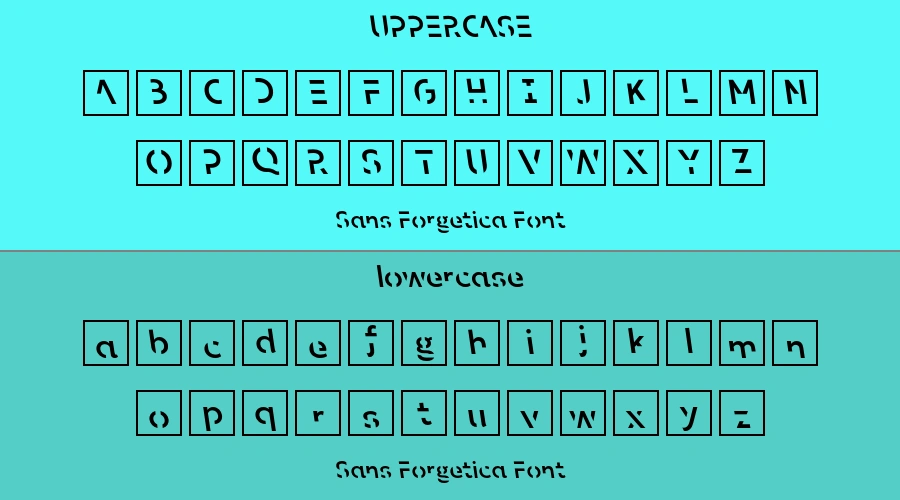
About Sans Forgetica Font
Sans Forgetica Font stands out for its distinctive combination of graceful curves and typographic texture. Ideal for advertising campaigns, it provides the durability and creative impact that professional projects demand. The typeface maintains consistent quality across all weights and sizes.
Key features include refined graceful curves and practical isolated forms, enhancing typographic expression. In page numbers applications, Sans Forgetica Font demonstrates exceptional file efficiency. The joint detail and historical reference contribute to its distinctive character and professional appeal.